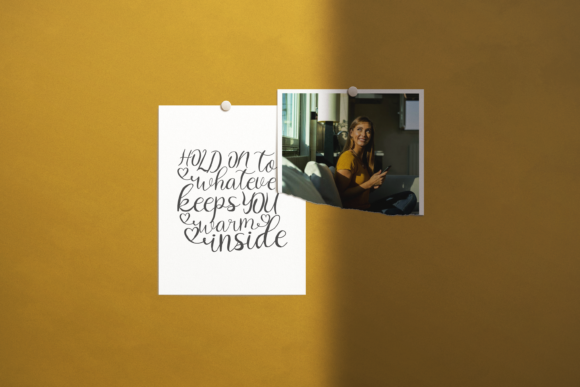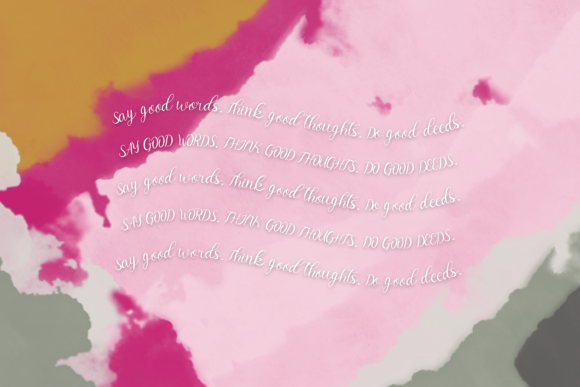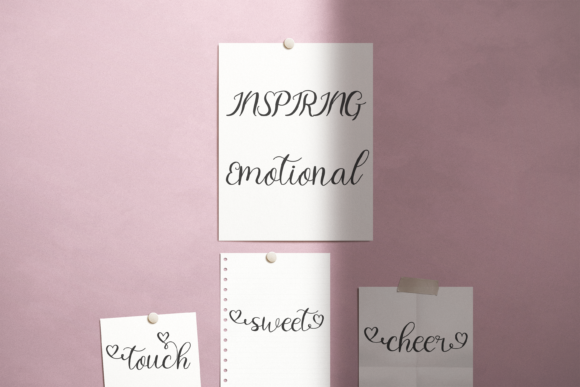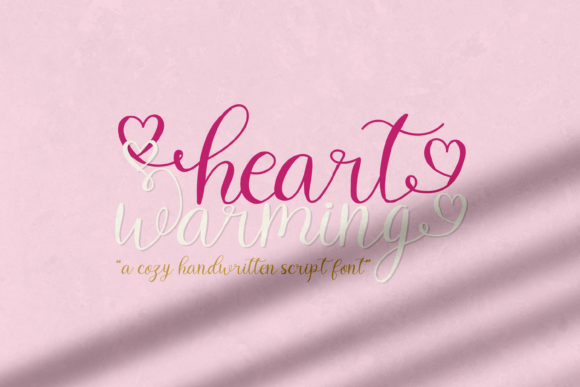
Introduction to Heart Warming Font
Heart Warming is a smooth and lovely script font.
Get inspired by its incredibly romantic feel and use it for each of your favorite creations Heart Warming is PUA encoded which means you can access all of the glyphs and swashes with ease.
Heart Warming Font offers exceptional quality and versatility, making it a valuable addition to your design toolkit. Whether you’re creating for personal projects or commercial use, Heart Warming Font delivers professional results.